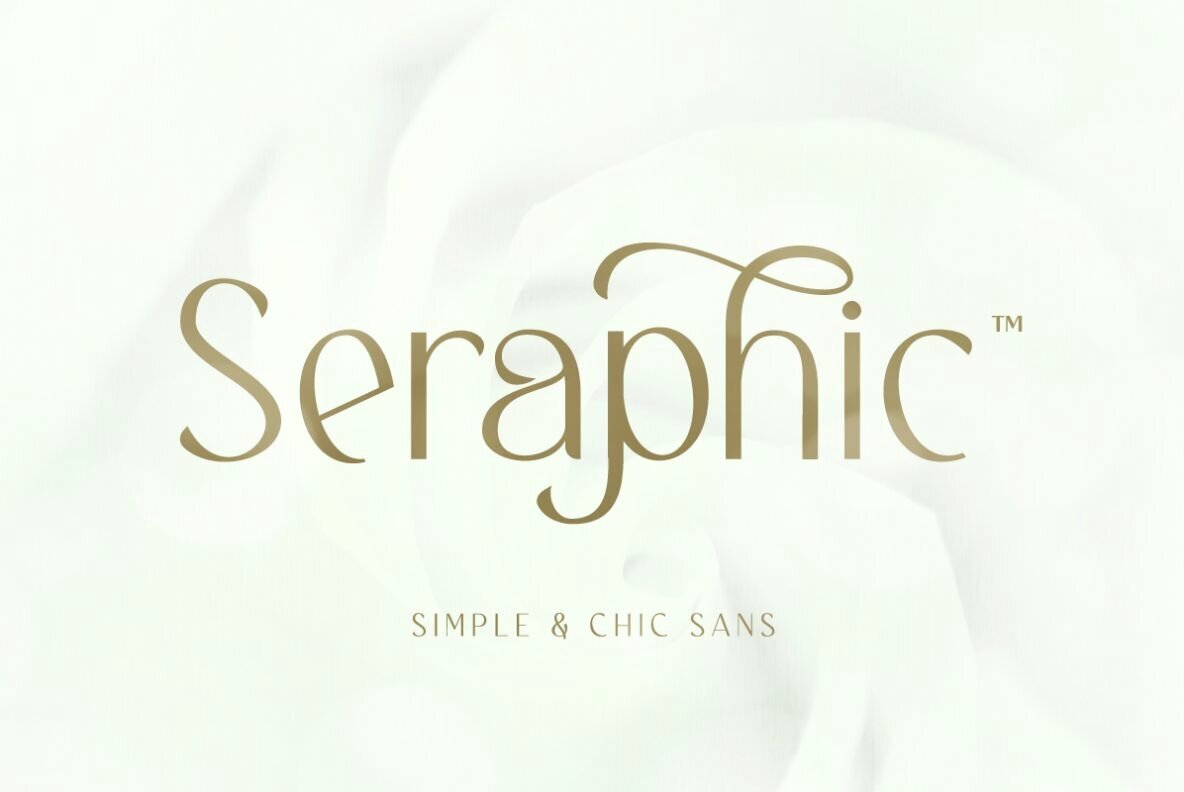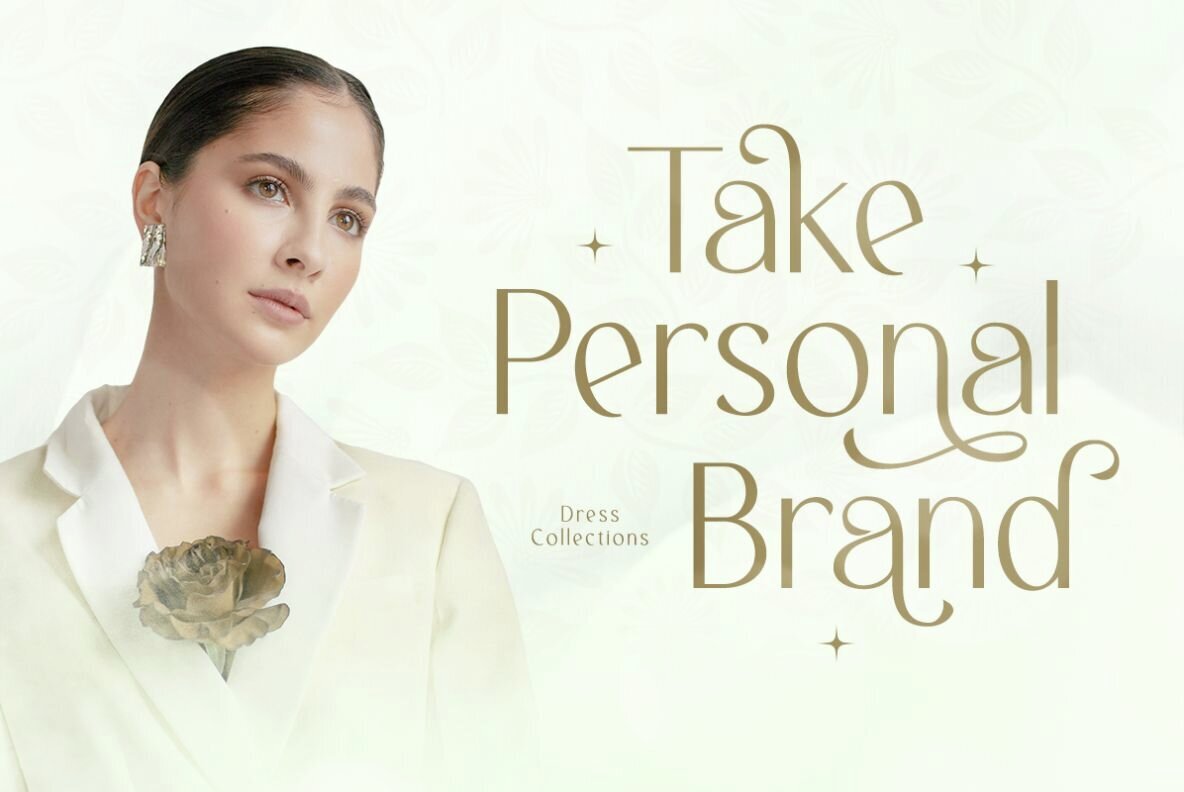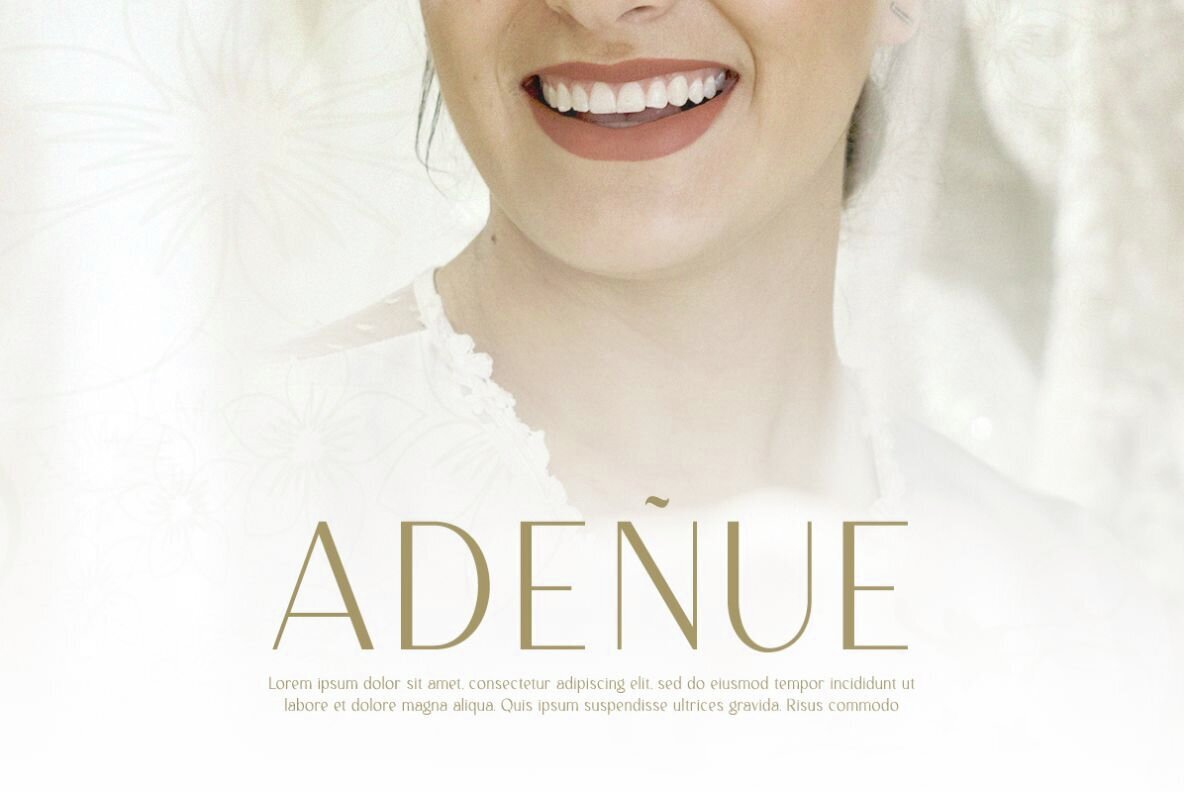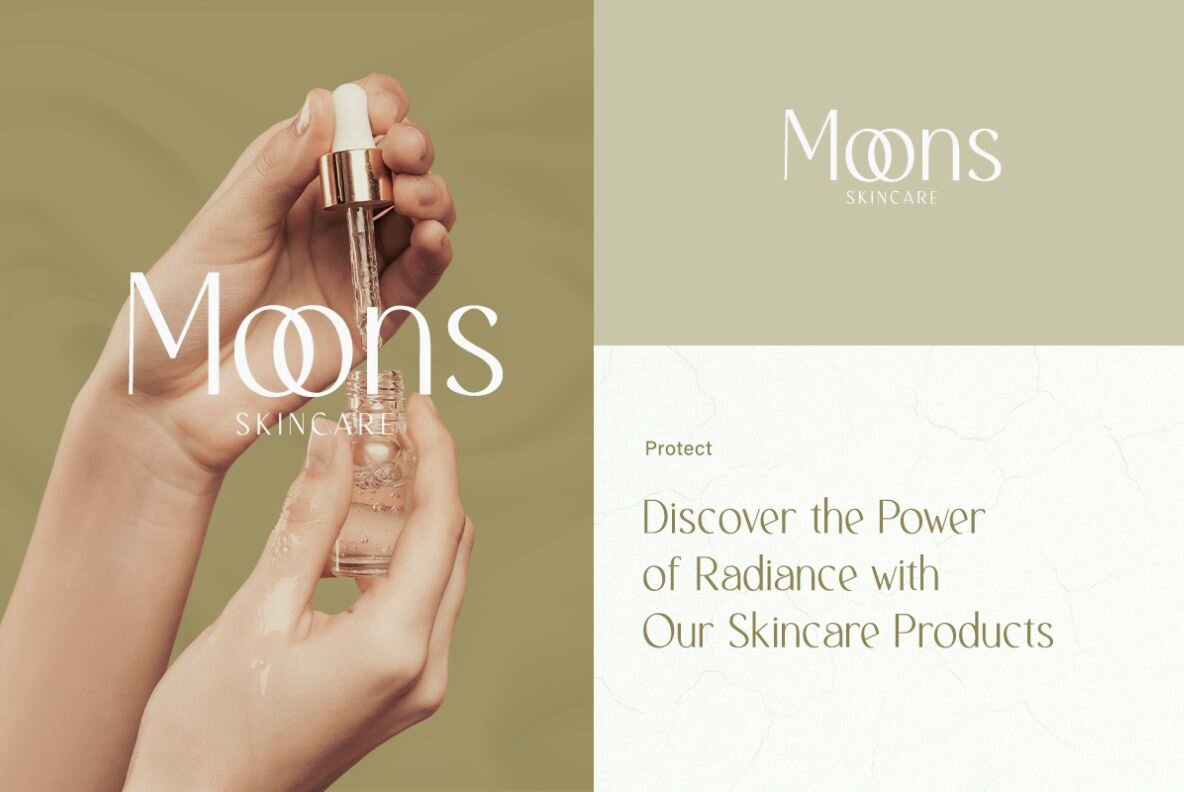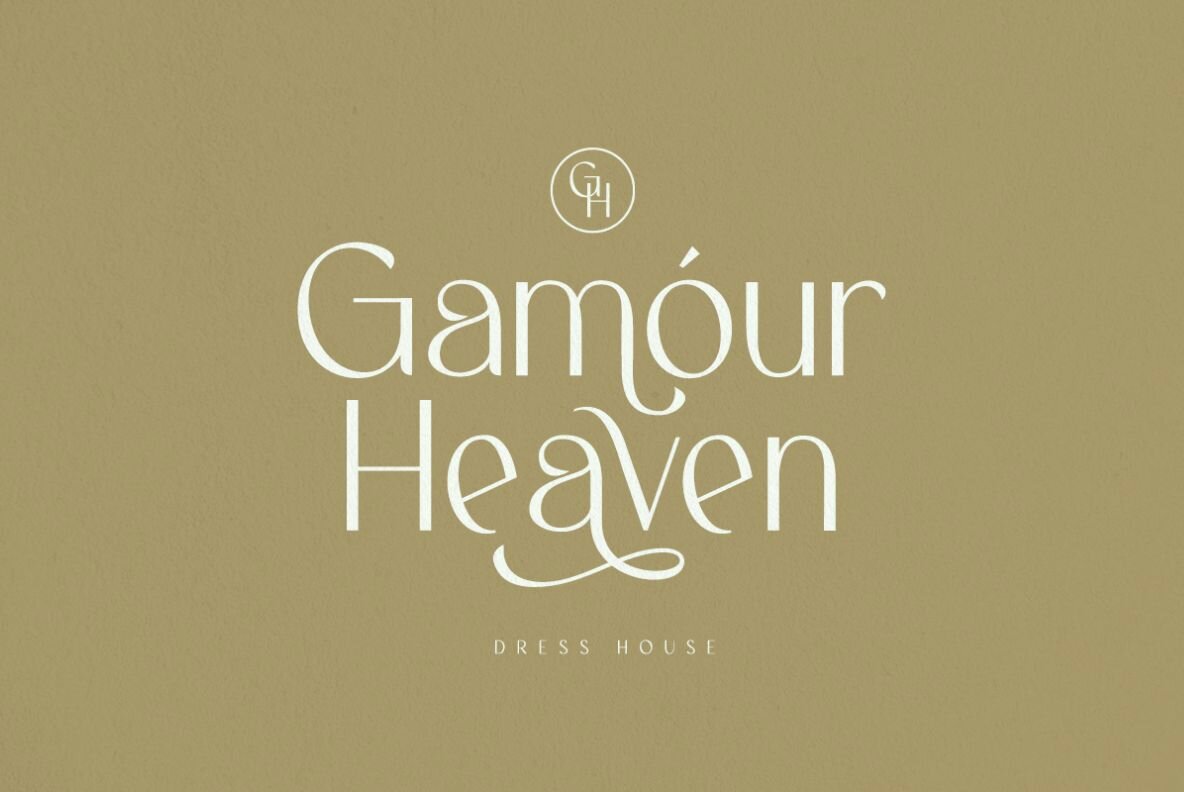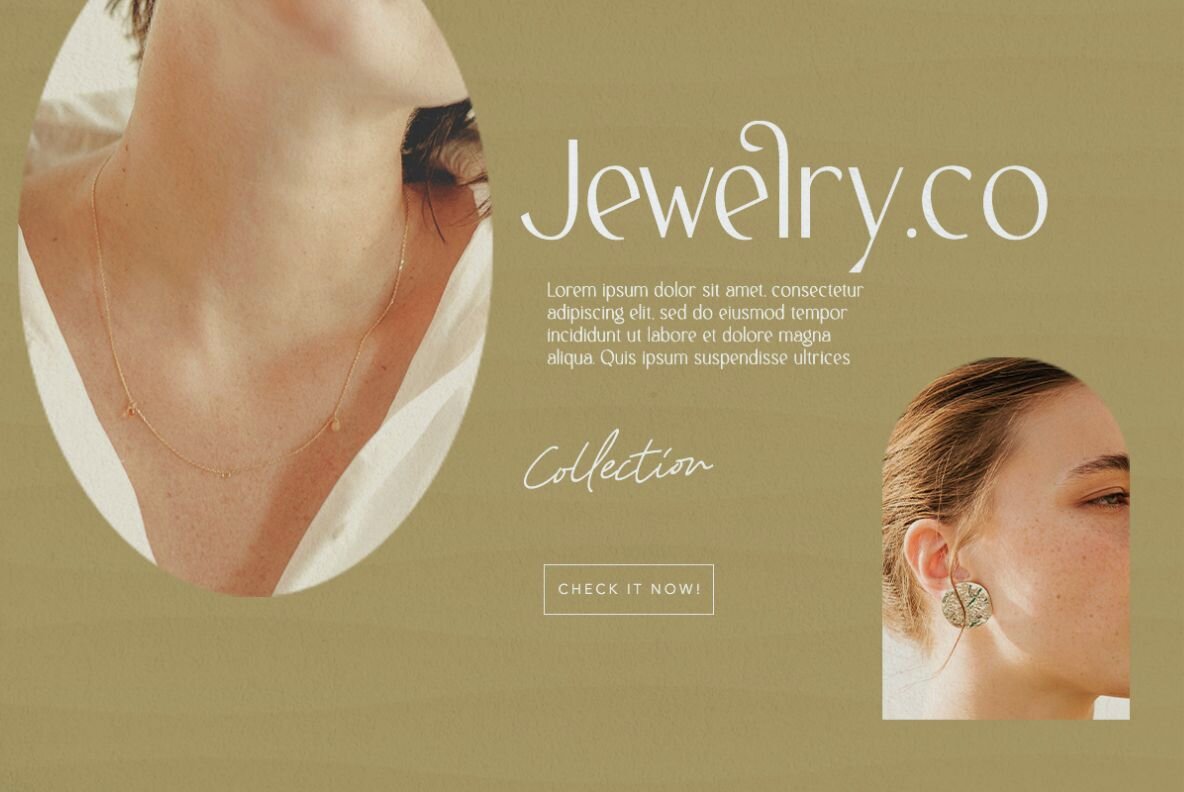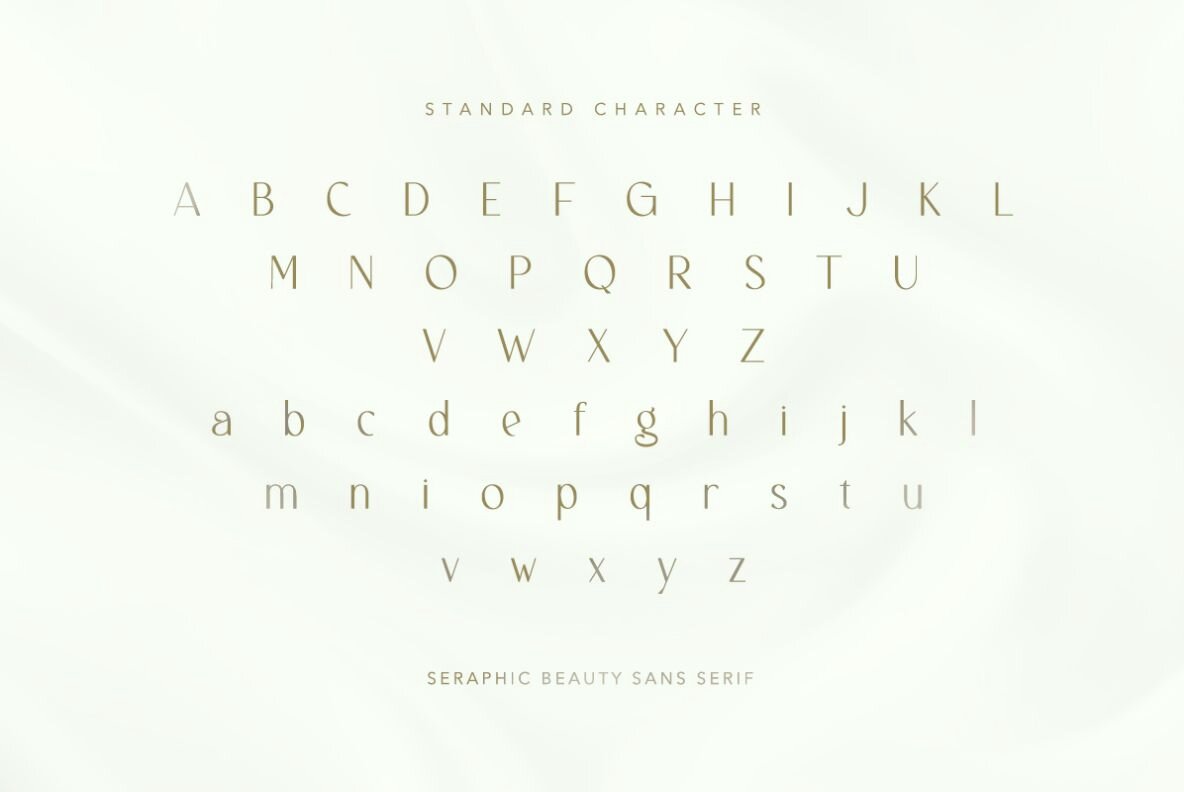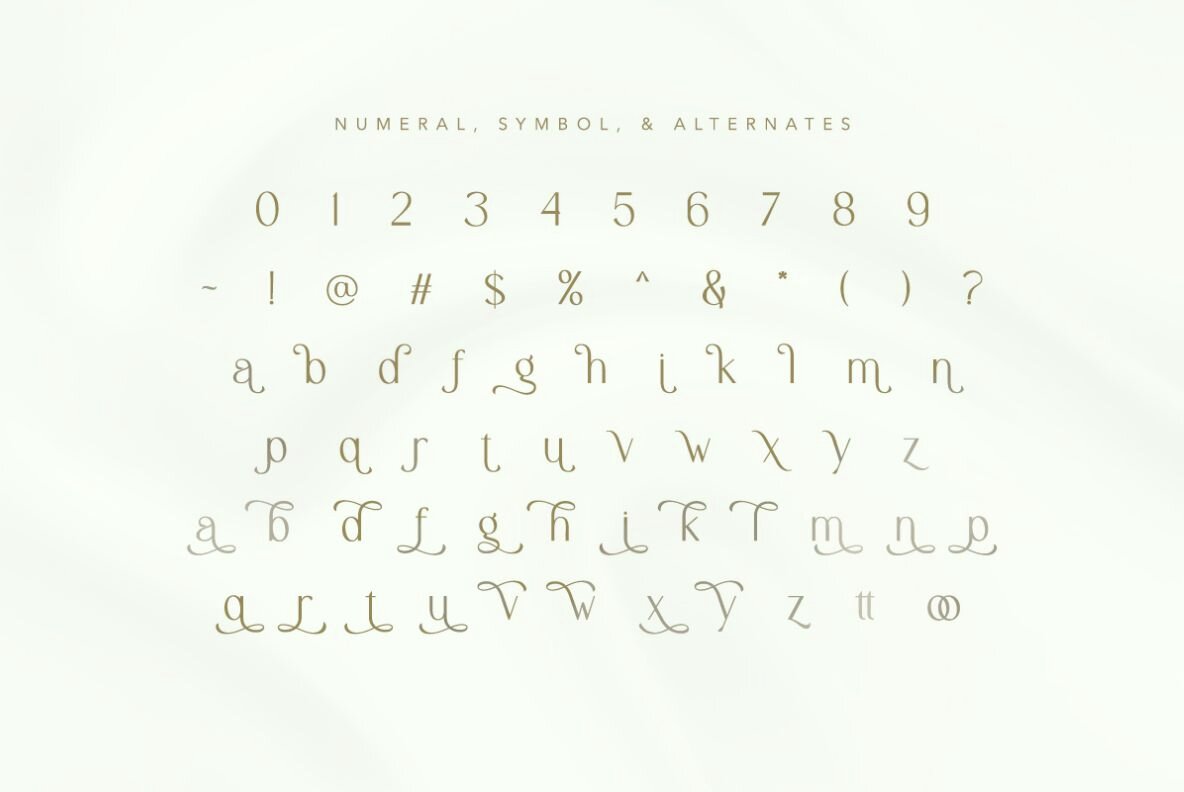
Seraphic Font
Seraphic Regular
Seraphic by Bale Type is a refined sans-serif font that seamlessly blends chic minimalism with subtle design flair. Boasting elegant alternates and ligatures, this font offers designers creative freedom, injecting unique typographic variations into any project. Ideal for those who appreciate simplicity infused with elegance, Seraphic serves a versatile range of design applications—from weddings to logos and branding.Seraphic: Chic Sans-Serif Elegance